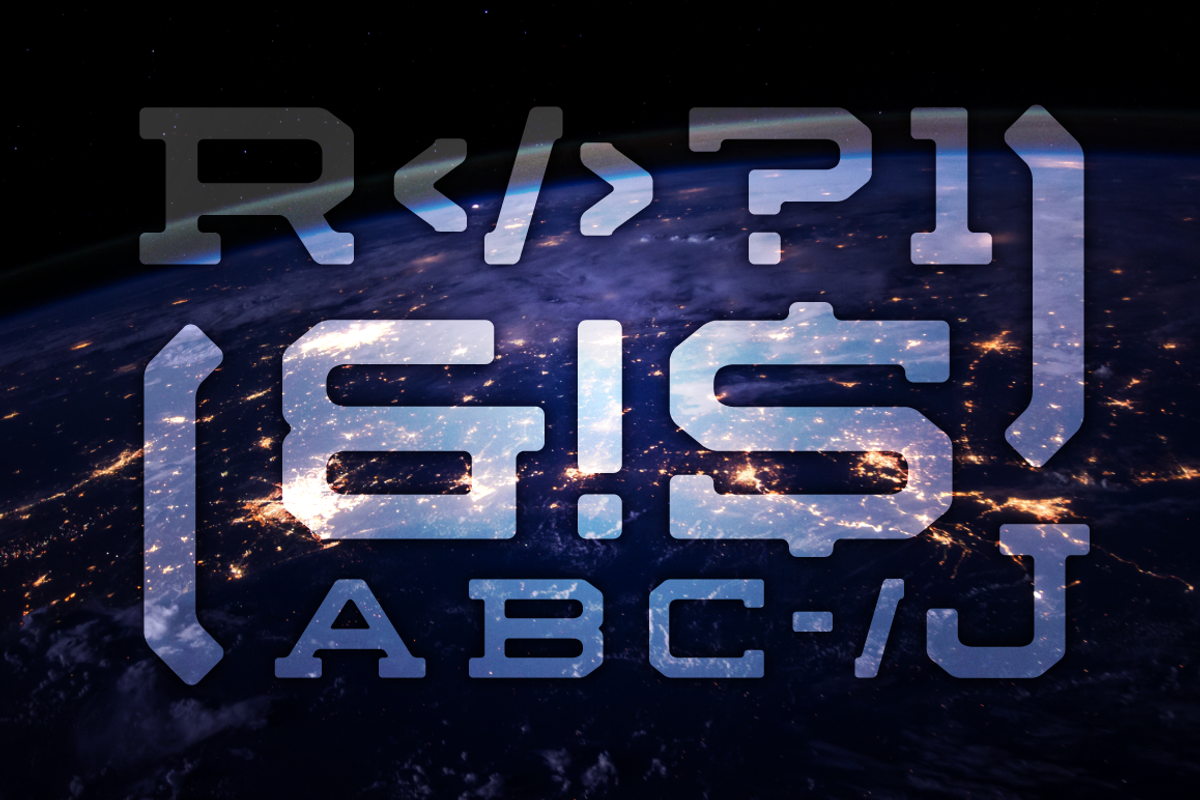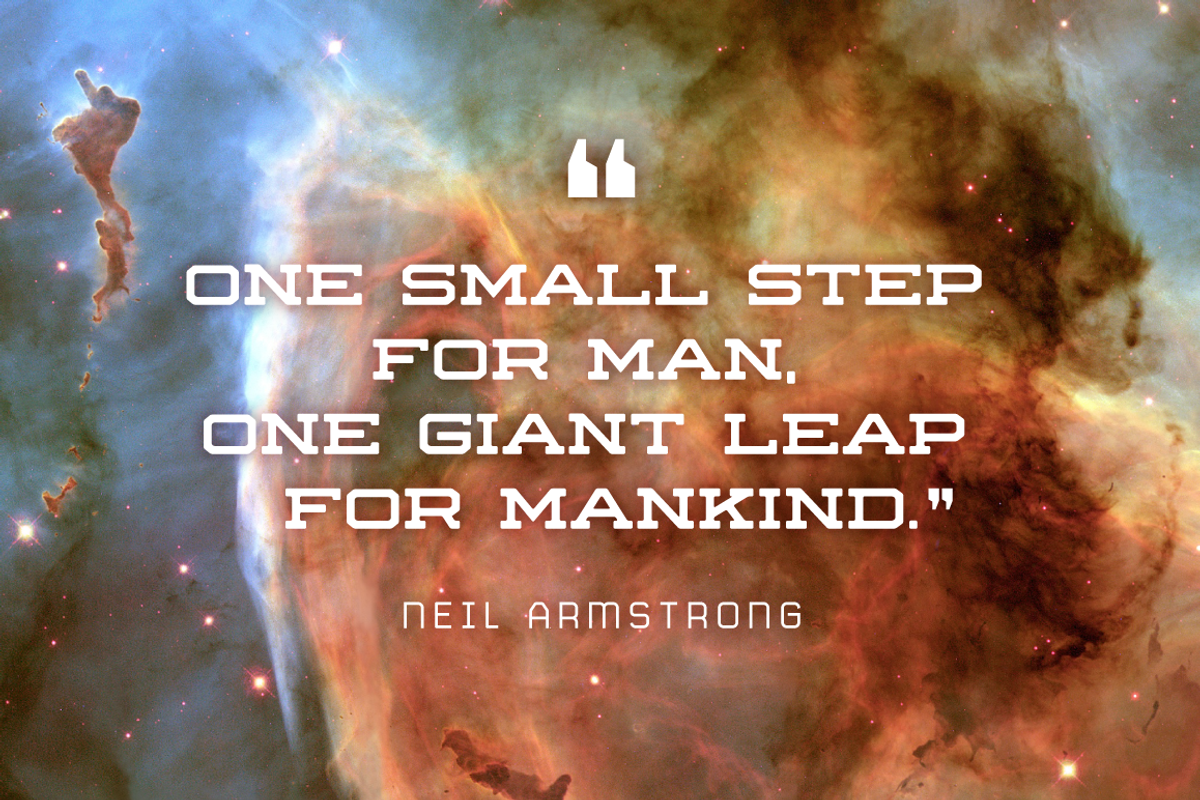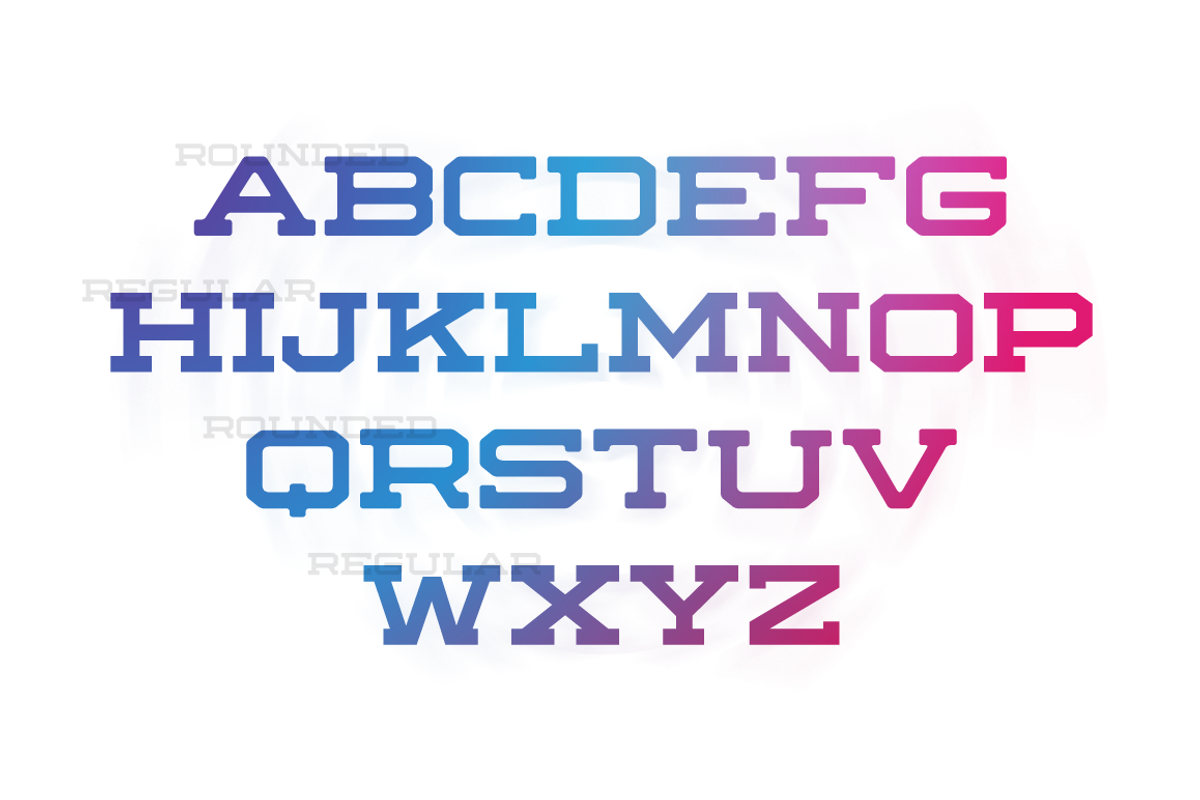
Rematch Font Family
Rematch Font Family by Fresh Pressed Fonts is a font selected for branding, posters, packaging, typography.
Why Rematch Font Family is worth a look
Rematch Font Family by Fresh Pressed Fonts fits naturally into Branding, posters, packaging, typography.